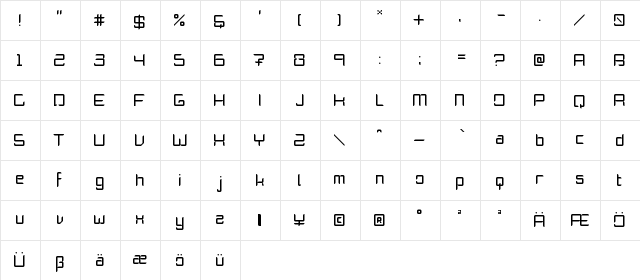
Goaliat Regular
| Designer | Riccardo Carlet |
Design Context for Goaliat Typeface
Goaliat is a composed and adaptable typeface that performs quietly and consistently across a wide range of design contexts.